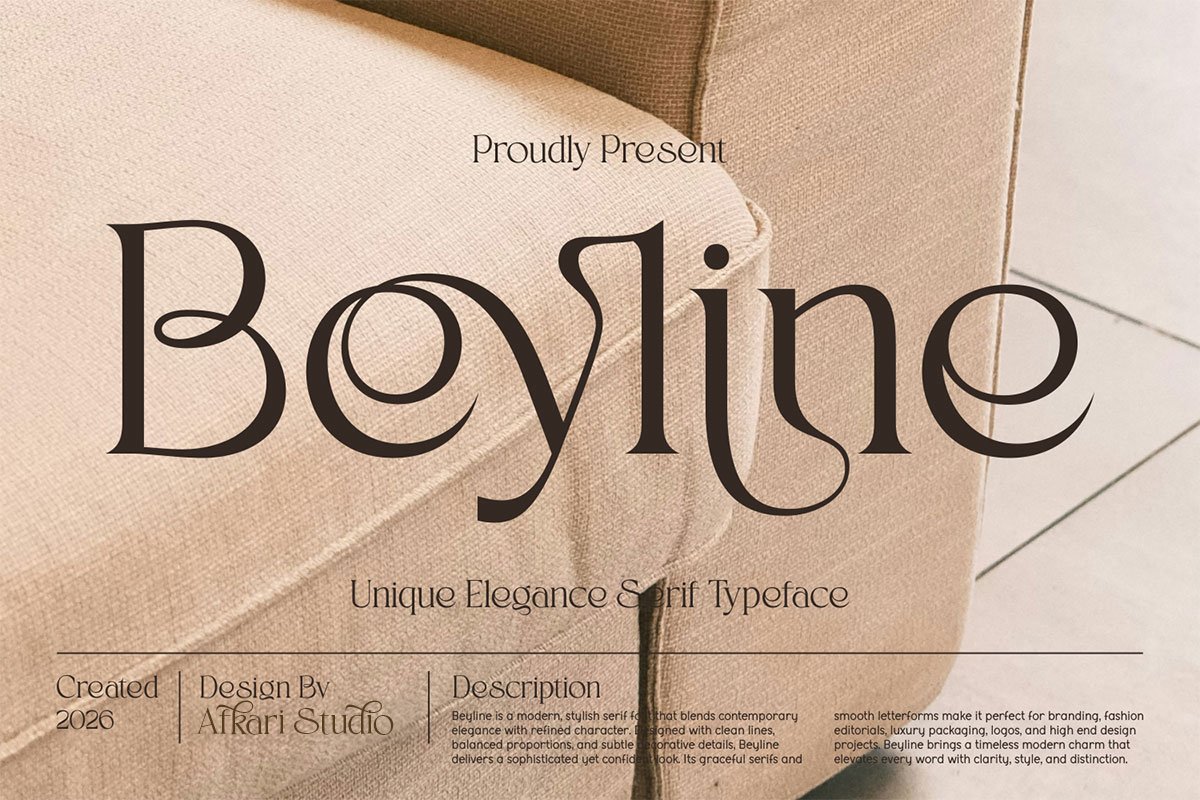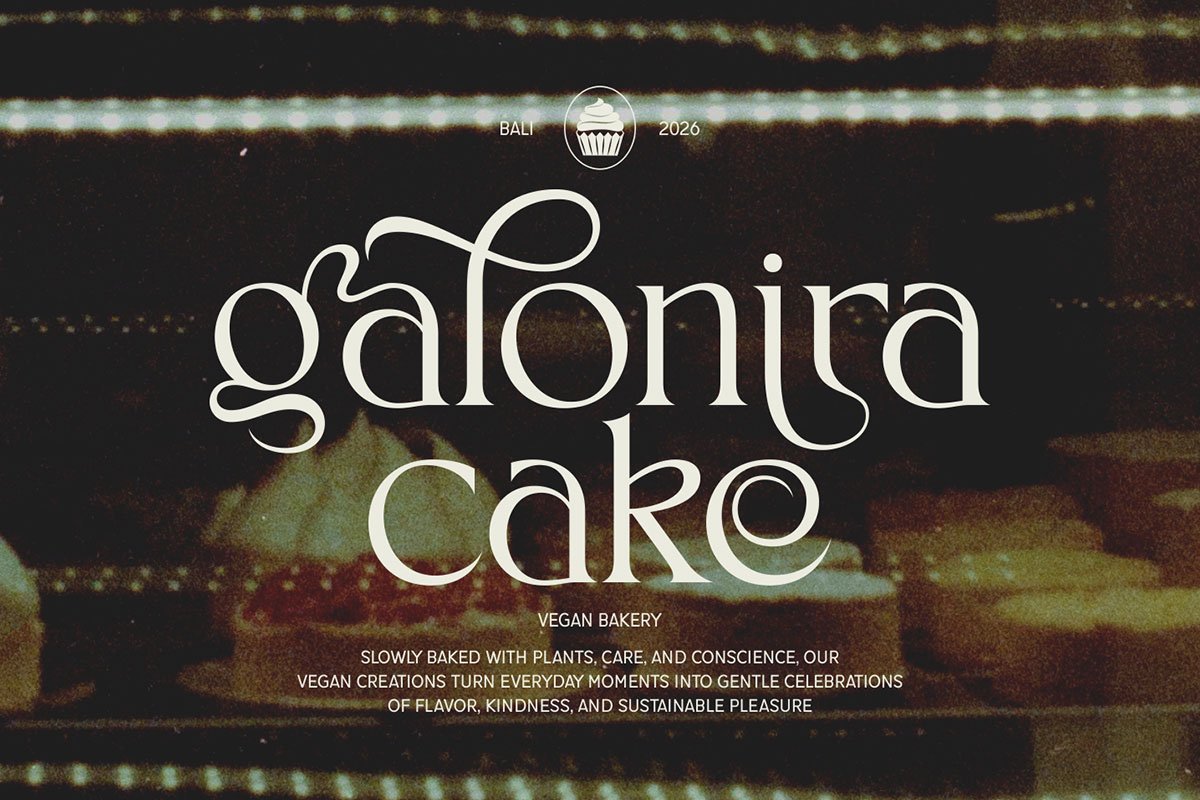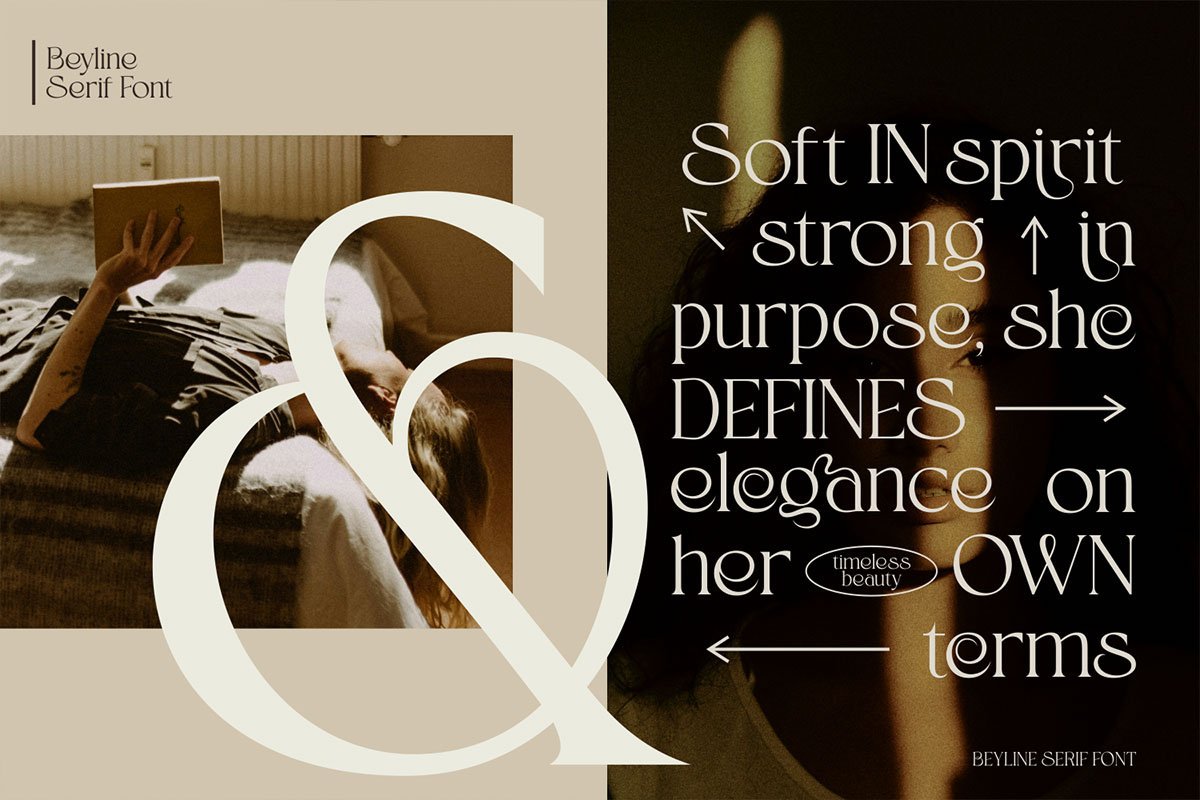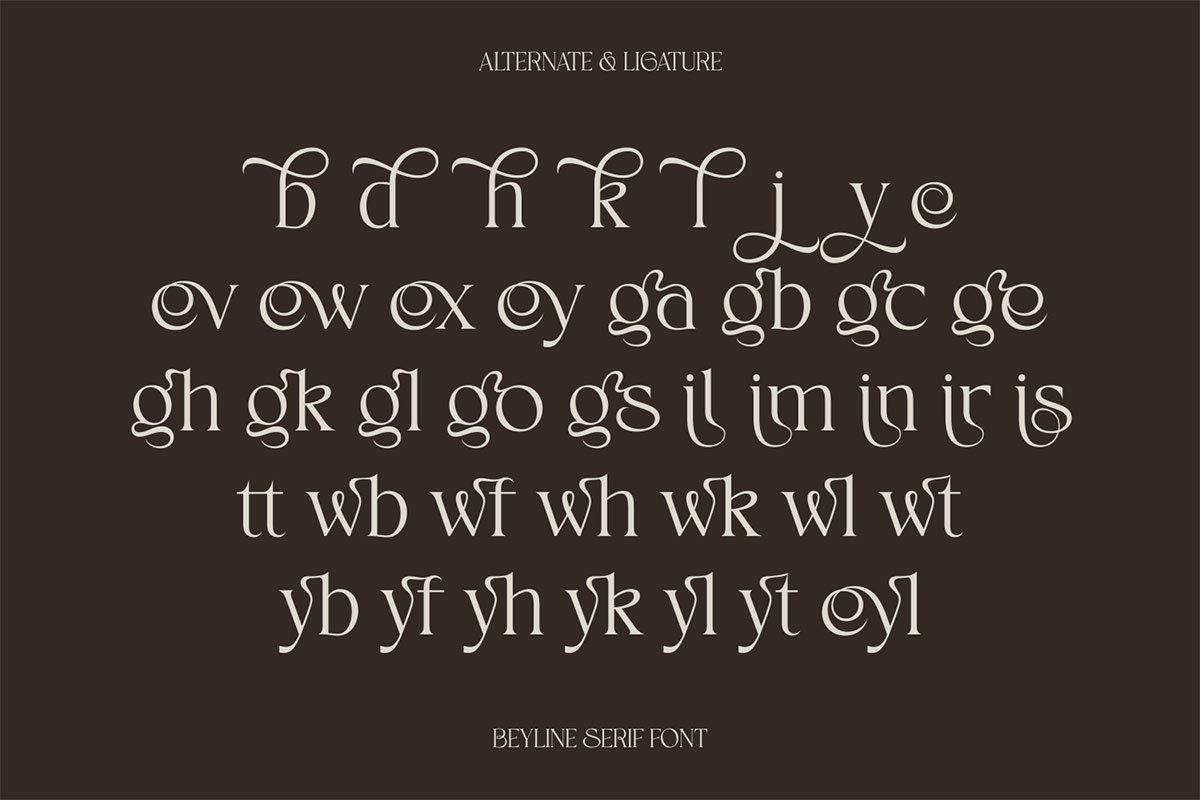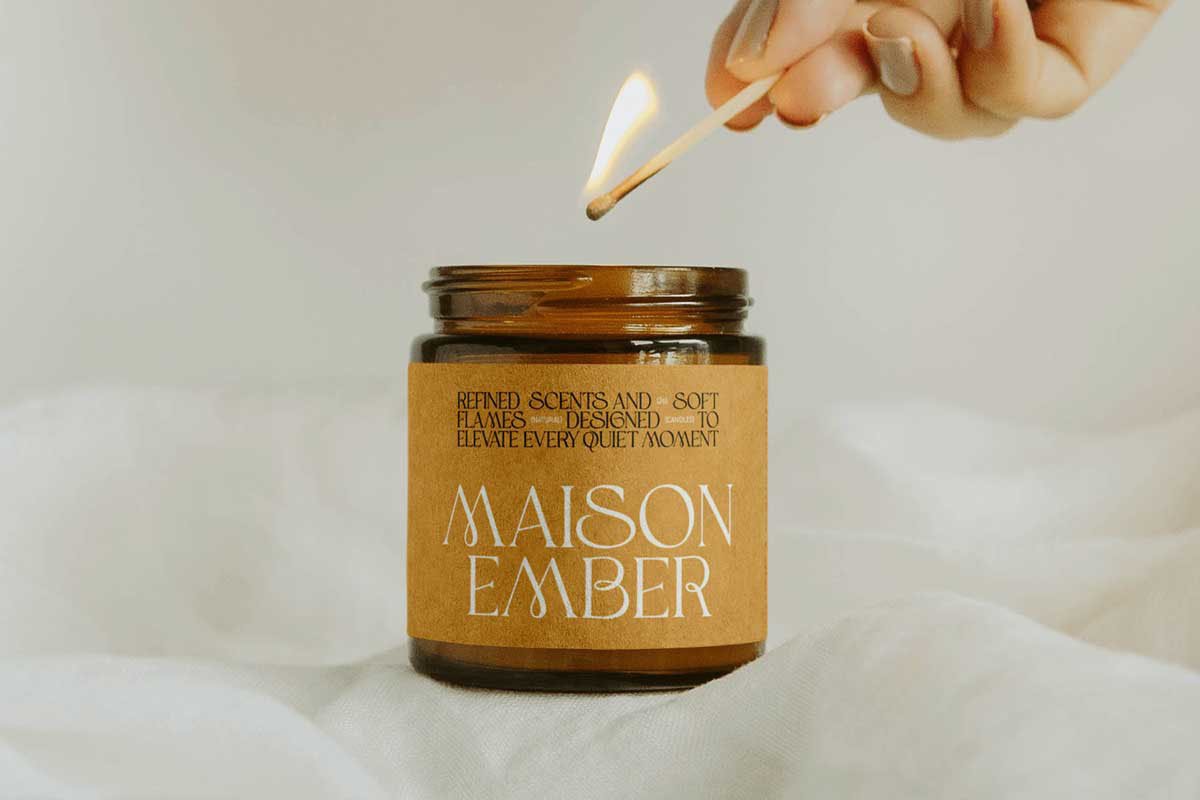
Beyline – Serif Typeface is a unique elegance serif typeface crafted to deliver refined beauty, artistic character, and timeless sophistication. Designed with graceful curves, stylish serif details, and balanced proportions, Beyline blends classic serif structure with a modern luxury aesthetic. The result is a distinctive display typeface that feels premium, confident, and visually captivating.